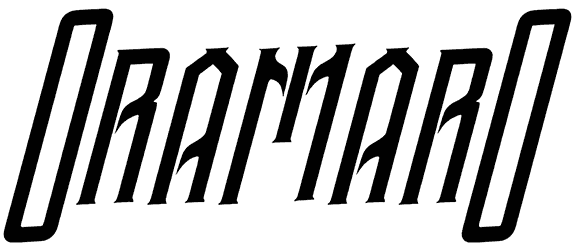
Monster Font
Are you searching for a monster font with a crazy and scary vibe? Monster can help you to make your intended design with this mood and catch a lot of attention. With no offer for lowercase, this Halloween font can throw an exciting and chilling vibe into your designs, for instance, posters, invitations, games, and many others the same.
Designed by: Mozatype